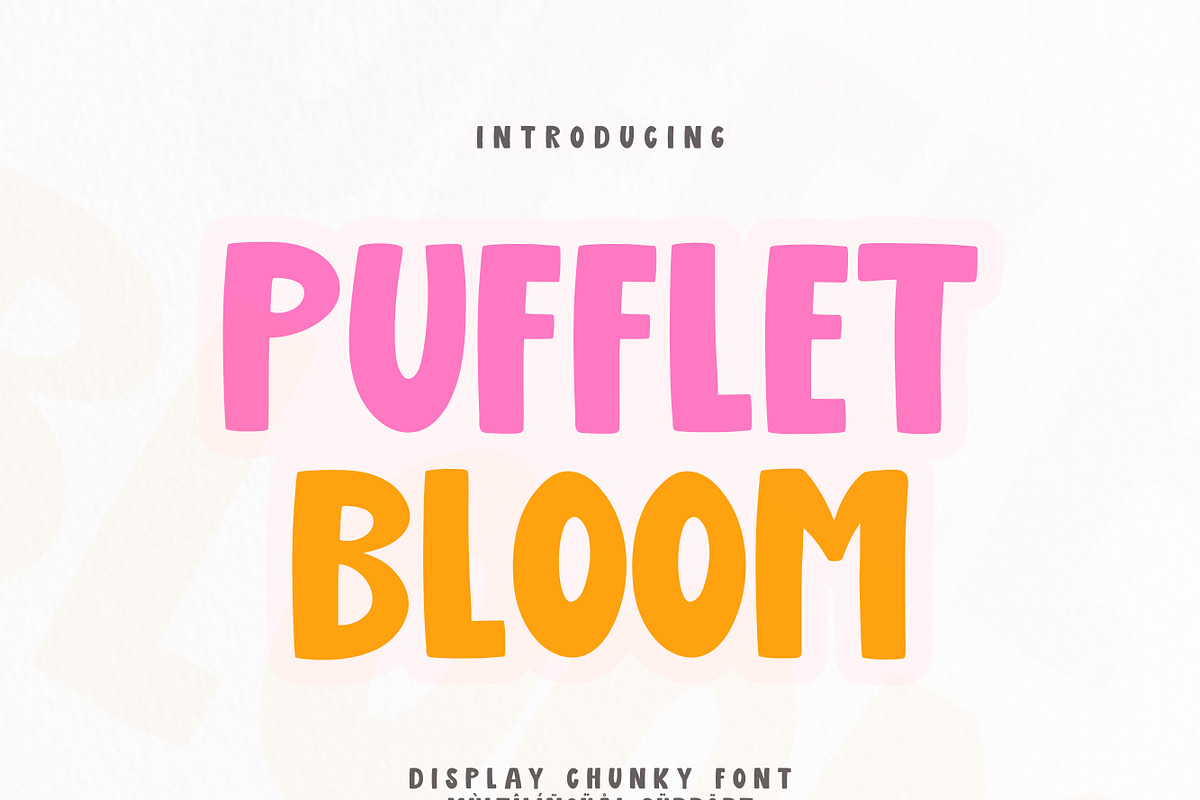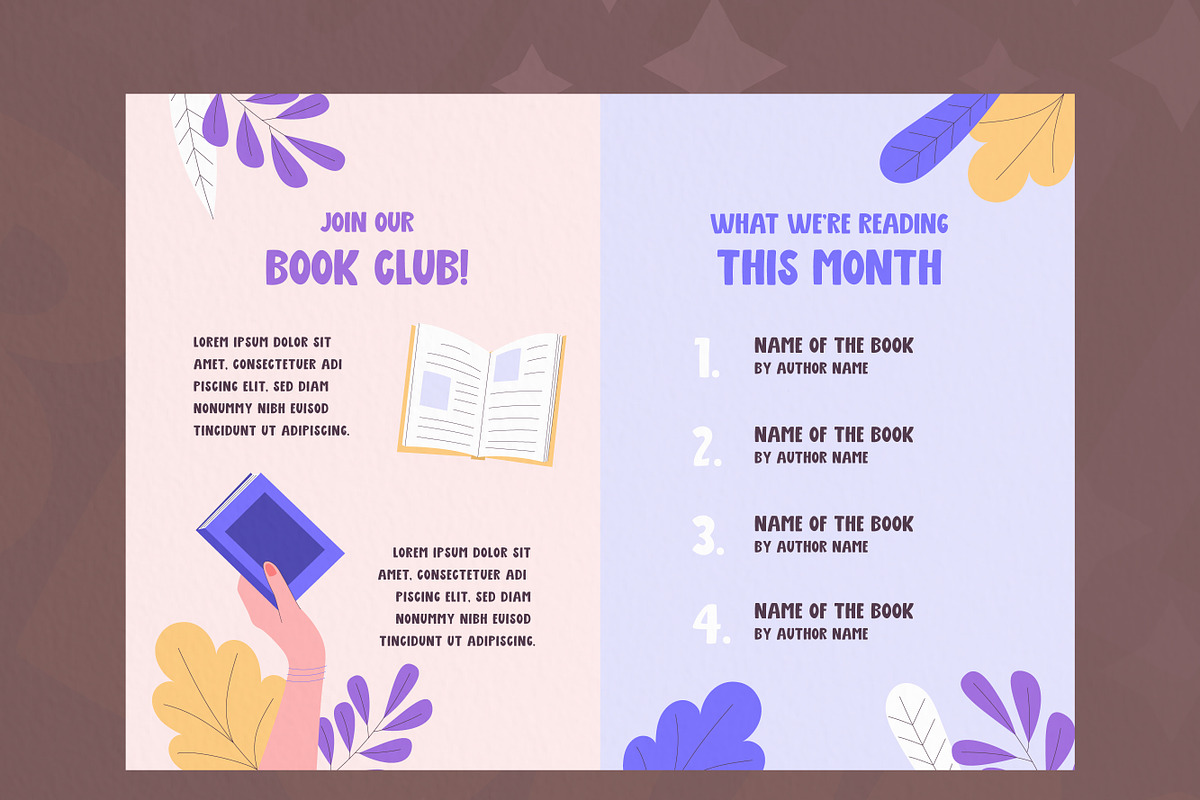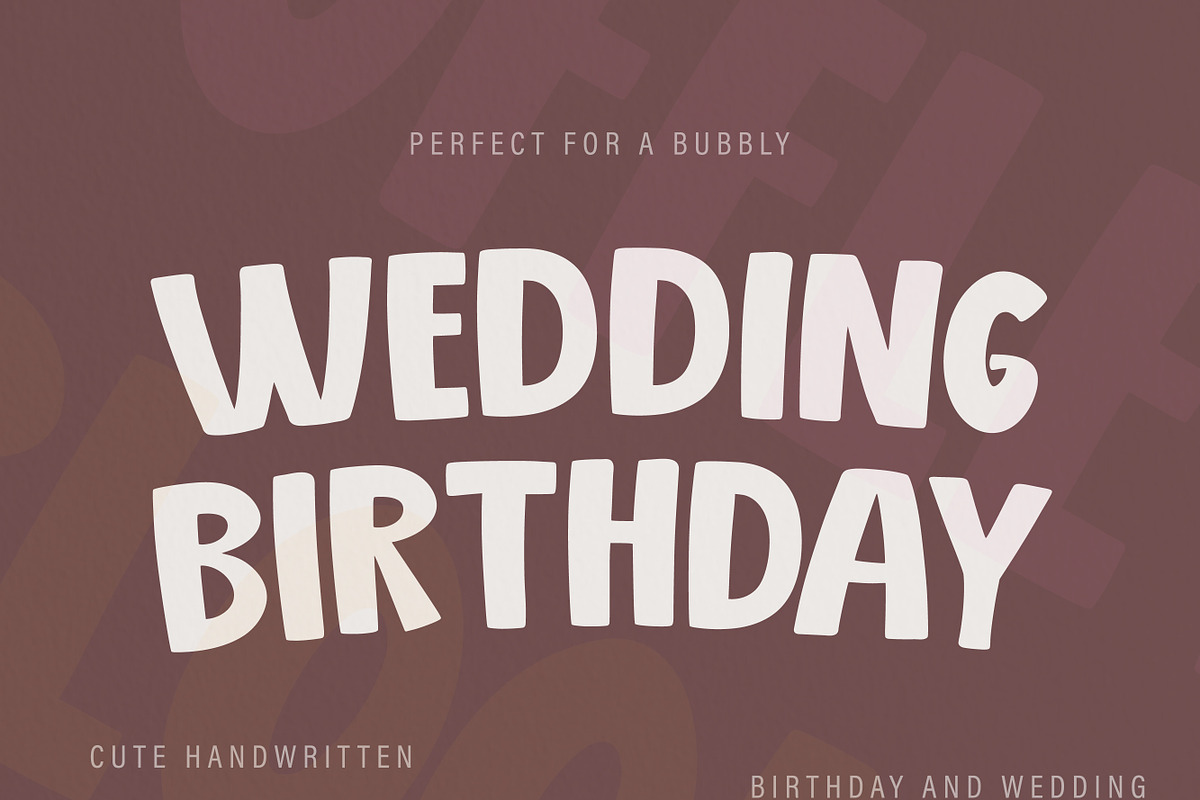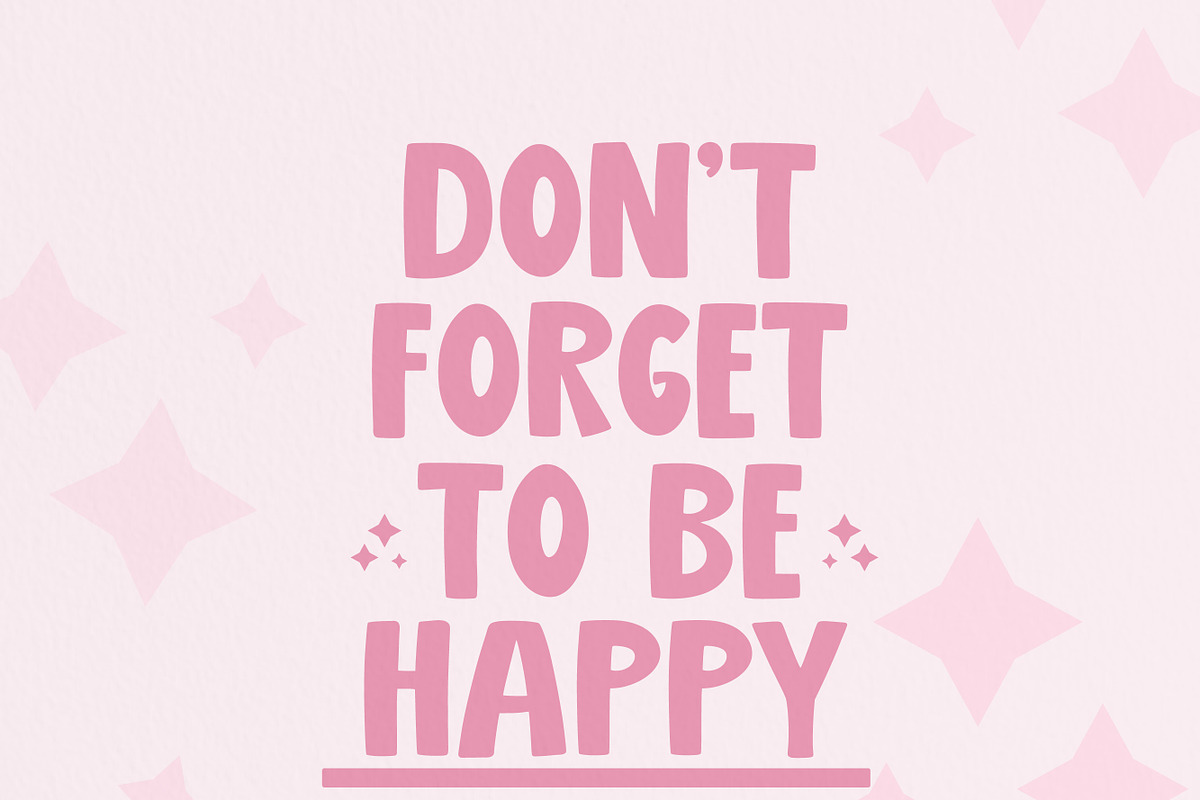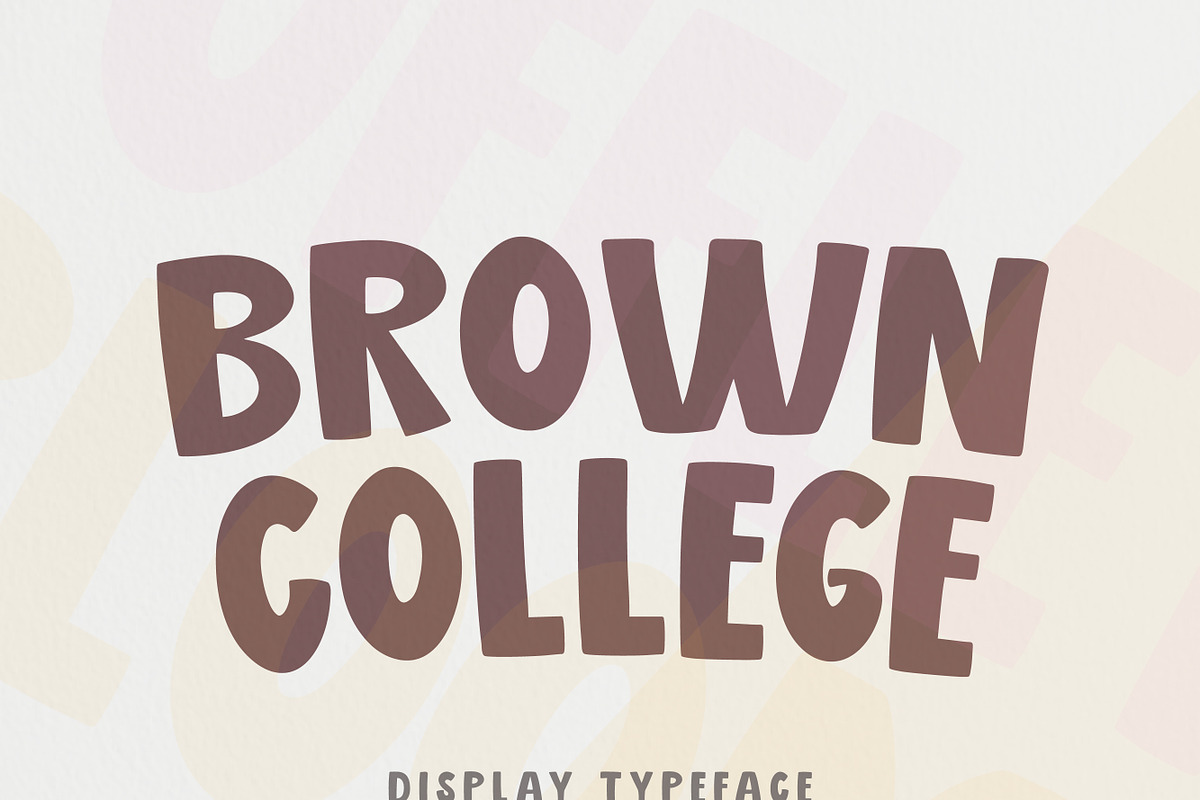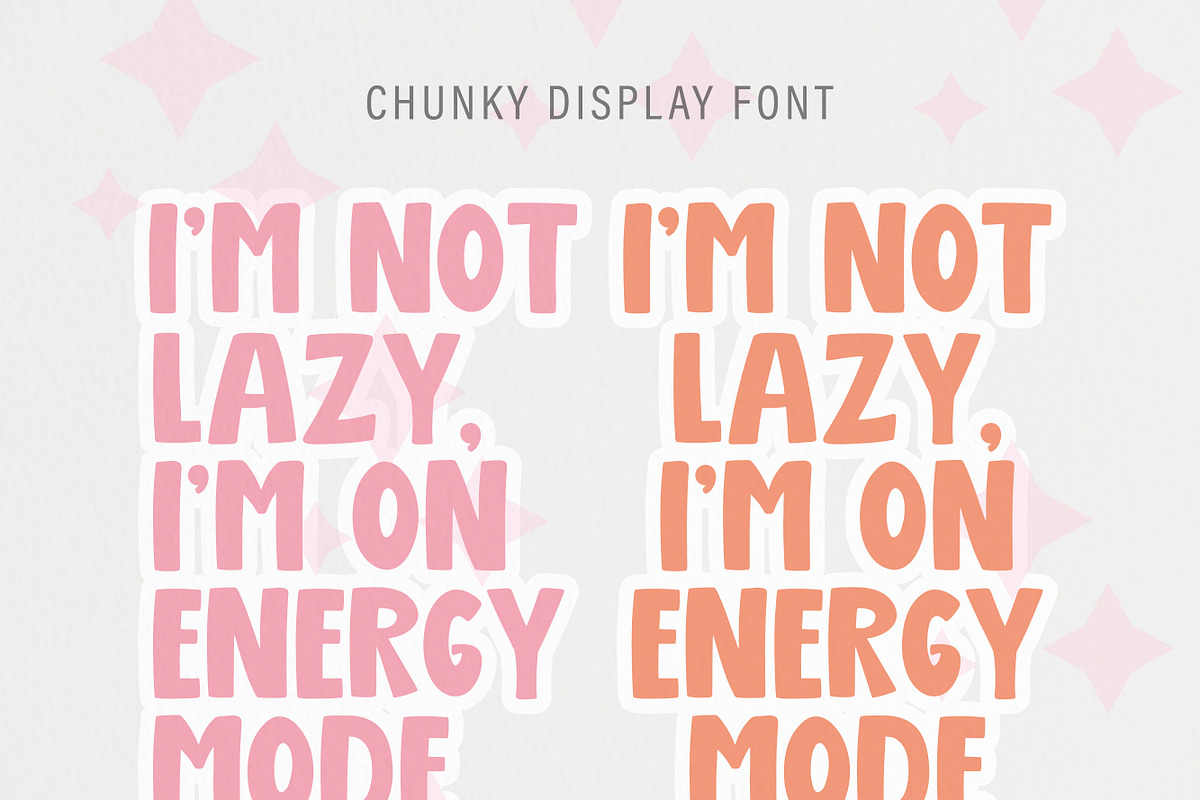
Pufflet Bloom
Pufflet Bloom is a playful, chunky display typeface designed to bring warmth, joy, and personality to any creative project. With its soft rounded edges and bold, inflated shapes, this font captures a fun and friendly aesthetic that instantly grabs attention. The lively letterforms make it perfect for children’s designs, branding, packaging, posters, social media graphics, and cute product labels.
Pufflet Bloom blends modern display styling with a bubbly handmade feel, giving your typography a unique voice that feels both cheerful and professional. Its multilingual support ensures versatility across global projects, while the clean structure keeps readability strong even in bold display use.